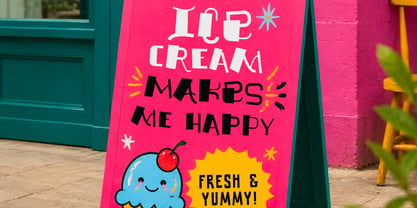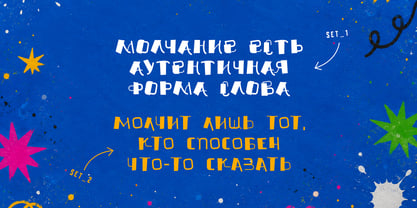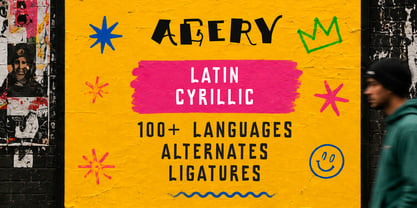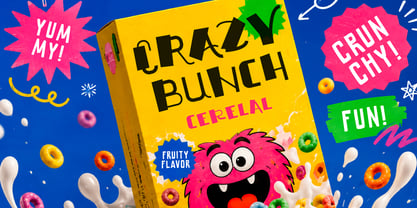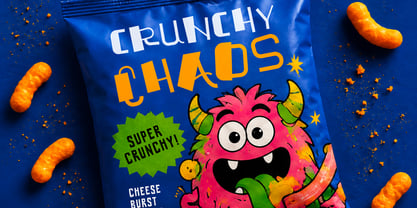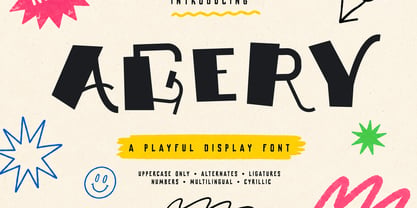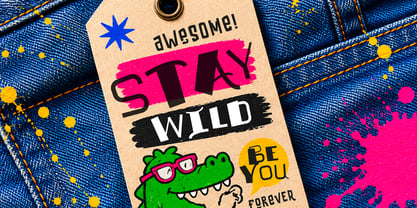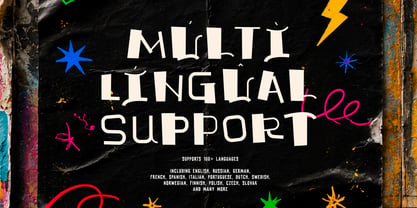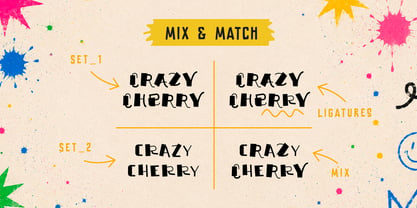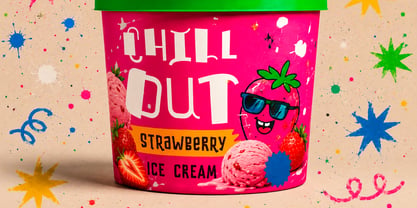
Agery
by Chekart
The Agery Font Family was designed by Ekaterina Chernysheva and published by Chekart. Agery contains 1 styles. More about this family
AGERY is a bold, playful display font full of personality, energy, and creative charm. Designed with quirky shapes, expressive alternates, and eye-catching ligatures, it brings a fun and memorable look to any project.
Perfect for food packaging, snack brands, kids products, posters, merchandise, social media graphics, YouTube thumbnails, TikTok content, playful logos, and creative branding projects.
AGERY includes uppercase characters, numbers, punctuation, multilingual support, stylistic alternates, and ligatures, giving you plenty of options to mix, match, and create unique typography compositions.
• Uppercase letters
• Numbers & punctuation
• Stylistic alternates
• Ligatures
• Latin & Cyrillic support
• 100+ language support
• 700+ glyphs
• Food & beverage branding
• Candy and snack packaging
• Children's products
• Posters & flyers
• Merchandise & apparel
• Social media graphics
• YouTube & TikTok branding
• Creative logo design
• Fun packaging projects
Add a splash of fun, color, and character to your next design with AGERY.
Designers: Ekaterina Chernysheva
Foundry: Chekart